Right now, no one's quite sure if we should still be saying 'Happy New Year' or not. But one thing's for certain, January's releases have properly impressed me. There's a refreshing lack of faff here; these are typefaces that know exactly what job they're meant to do, and they get on with it. No apologies, no hedging. Just confident, well-considered design that actually solves problems.
Many of these fonts engage with history in meaningful ways. We've got a 126-year-old script that's been lovingly resurrected from archival specimens; a serif based on the typography of an 1830 abolitionist manifesto... and these aren't just aesthetic nods to the past. They're active conversations with it; preserving something important whilst making it relevant for today.
There's also a lot of sheer practicality on show. A corporate sans that somehow manages to feel warm and human. A comprehensive serif system spanning 224 styles (yes, really). A display face inspired by ocean waves that actually captures that sense of organic movement. These typefaces work hard, but they've all got personality in spades.
What ties all this together is a refusal to choose between functionality and character. Every font here proves you can have both: that being useful doesn't mean being boring, and having a distinctive voice doesn't mean sacrificing versatility. Which, frankly, is exactly what good type design should be about.
1. GT Canon by Grilli Type
GT Canon represents Grilli Type's answer to a deceptively simple question: what should a contemporary serif be? Rather than reaching for stylistic reinvention or nostalgic reference points, the foundry has delivered a comprehensive system built around pragmatic functionality and modern requirements.
The family's scope is genuinely impressive: three optical sizes, seven weights, five widths, italics and a monospaced companion, totalling 224 styles. This isn't expansion for its own sake, but a deliberate architecture designed to handle whatever contemporary design demands. Together with GT Standard, its sans serif sibling, GT Canon forms a complete typographic ecosystem.
Most of all, what distinguishes GT Canon is its refusal to achieve versatility through blandness. The design maintains personality across its extensive range—movement and liveliness are embedded in the letterforms themselves, creating what Grilli Type describes as being "free of nostalgic connotations". This is a serif firmly rooted in the present tense, addressing what digital contexts require of typefaces today rather than what they needed yesterday.
The accompanying minisite frames the release through an alphabet of aesthetic terms, functioning as both specimen and theoretical exploration. It's an approach that mirrors the typeface itself: systematic without being sterile, functional without compromising character. GT Canon succeeds as both a workhorse and a voice, demonstrating that contemporary type systems can serve multiple roles whilst maintaining a coherent identity throughout.
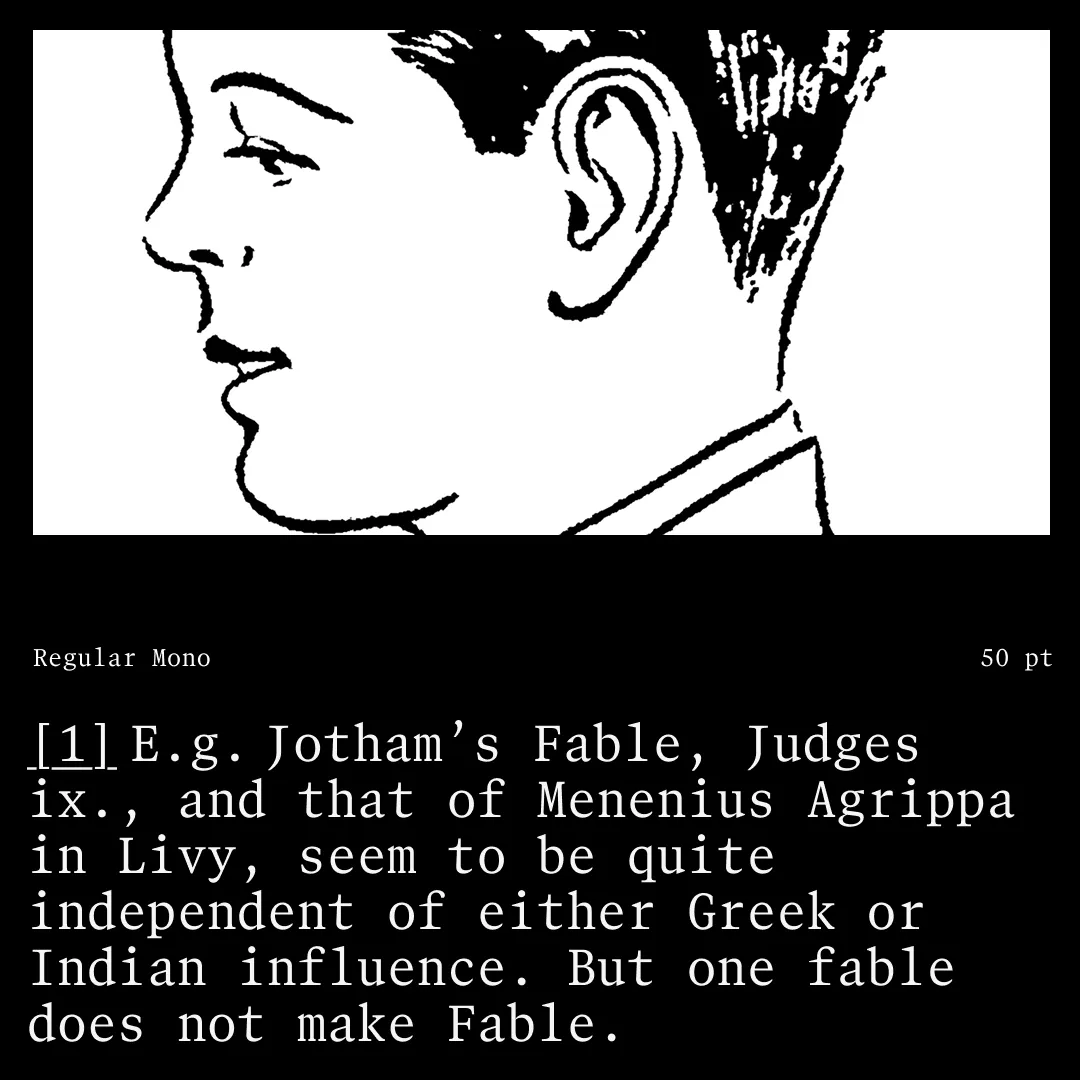
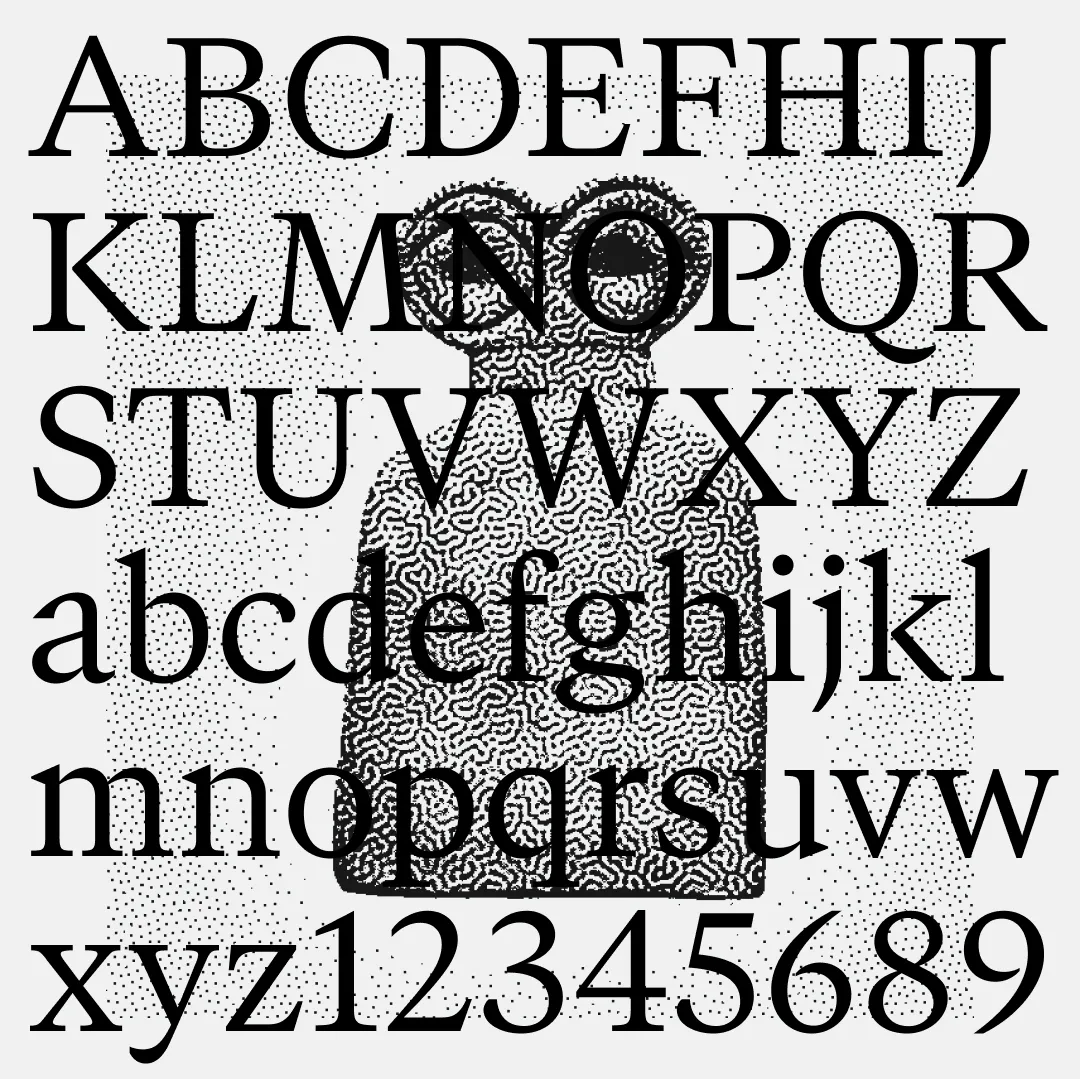
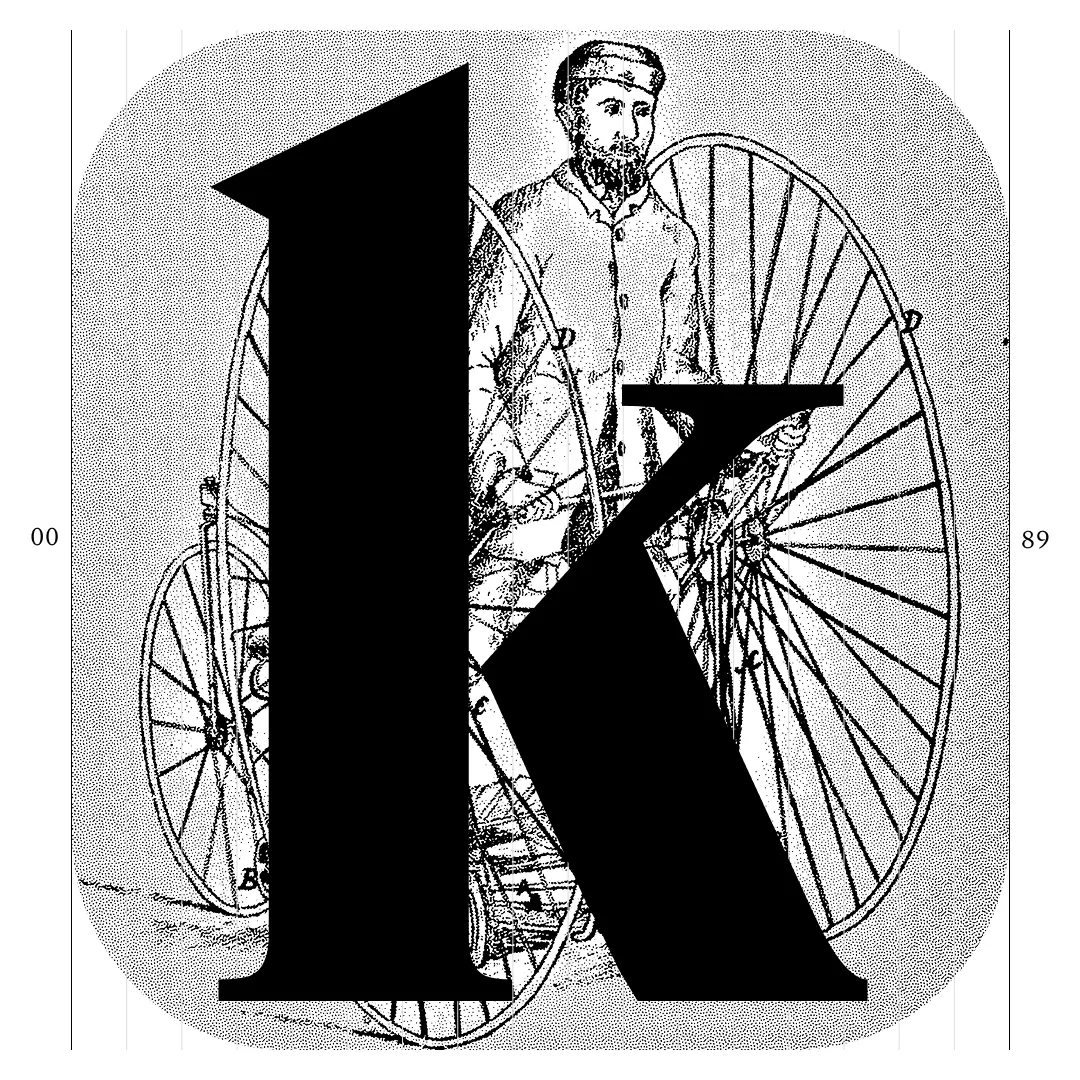
2. WTF Forma by W Type Foundry
Magdalena Arasanz and the team at W Type Foundry set themselves a challenging brief: create a typeface for big corporations that actually feels human. WTF Forma is their solution: a sans serif designed specifically for the complex communication needs of large organisations, yet one that avoids emotional sterility.
Drawing inspiration from DIN's clarity and structure, WTF Forma balances professional maturity with genuine approachability. It's designed to work across the full spectrum of comms: long-form copy, short copy, lists, titles, presentations, and everything in between. The foundry describes it as a "true solution", and that utilitarian framing proves accurate. This is a typeface built to handle real problems.
The family's 50 styles, including italics, span from Compressed through Condensed to Regular and Expanded to Wide. This range isn't mere expansion but considered variation, each width serving specific spatial and hierarchical needs. The result is a system that remains easy to navigate despite its breadth, offering what W Type Foundry calls "endless possibilities" without overwhelming complexity.
What makes WTF Forma compelling is its recognition that "legible and formal" need not mean cold or impersonal. The typeface maintains warmth and human character whilst delivering the reliability multinational brands require. In an era where corporate communication increasingly demands both authority and approachability, WTF Forma demonstrates how contemporary type design can serve both needs without compromise. It's professional typography that doesn't feel like it's apologising for having a personality.
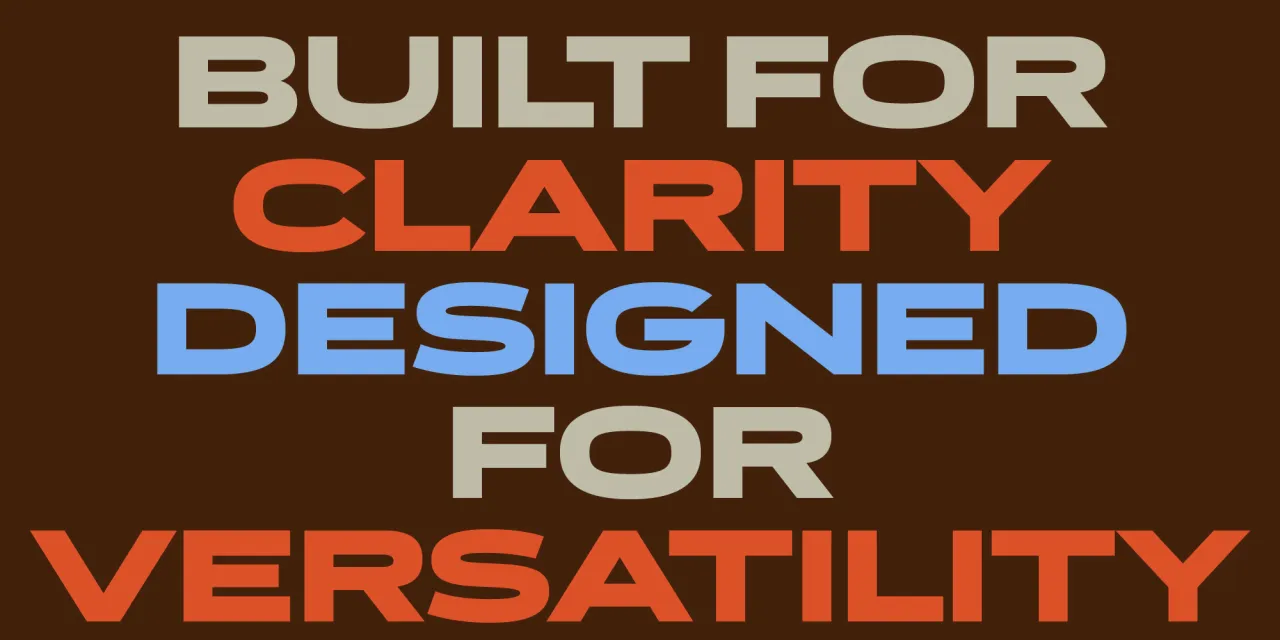
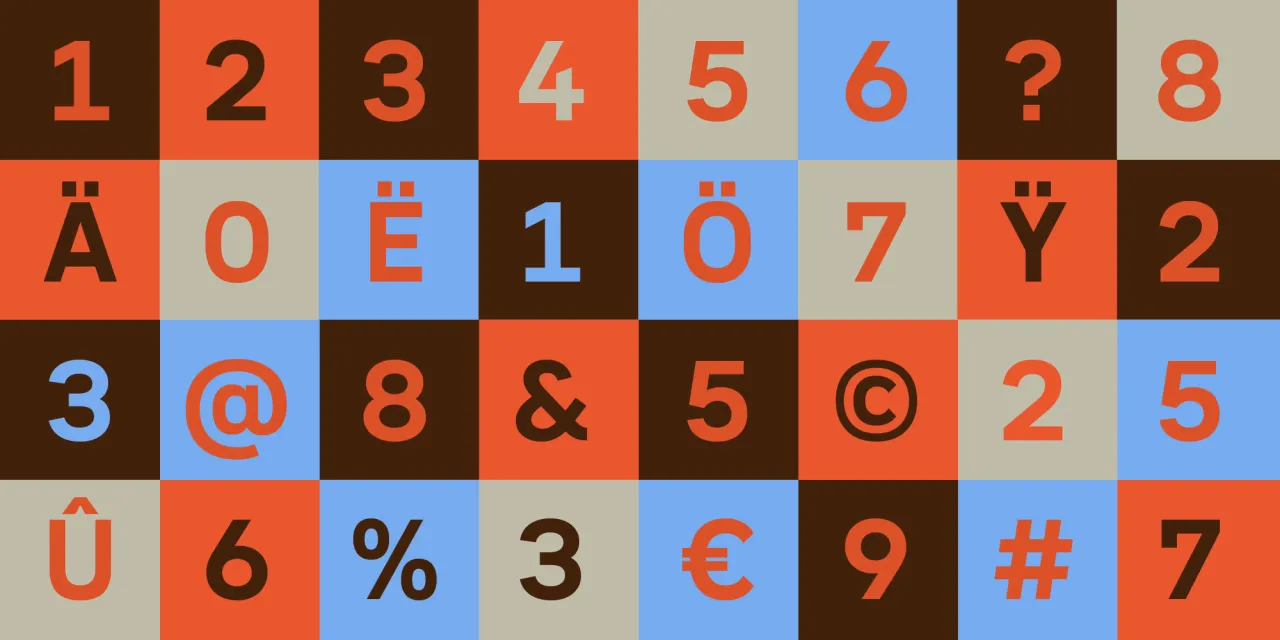
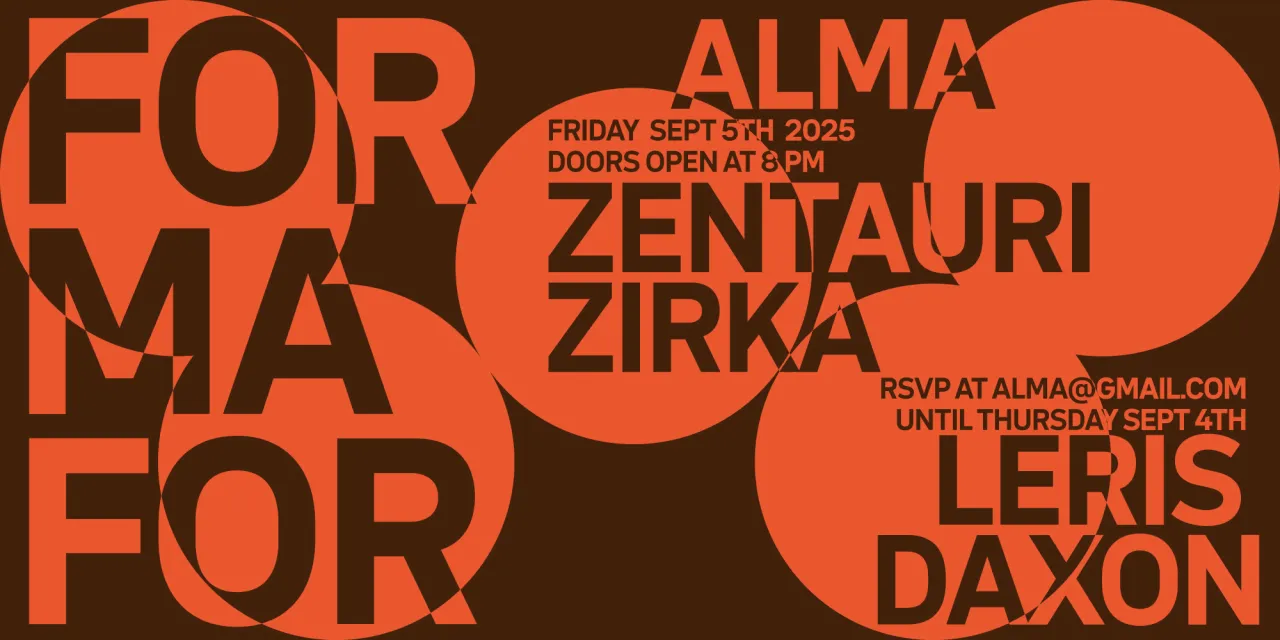
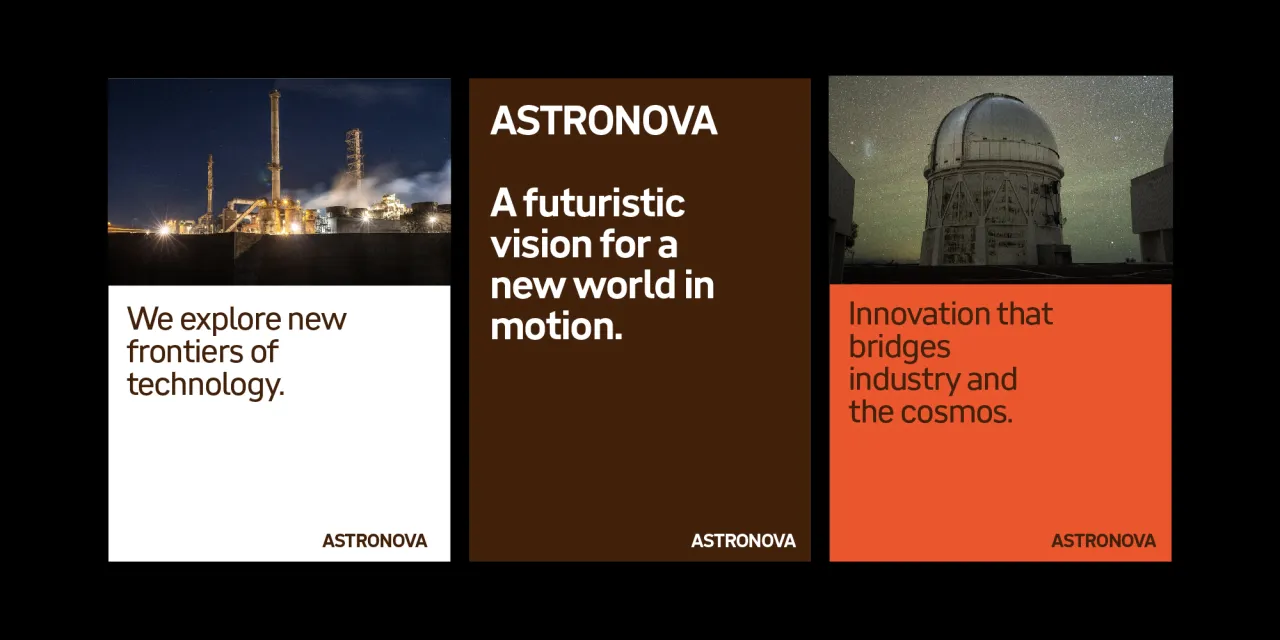
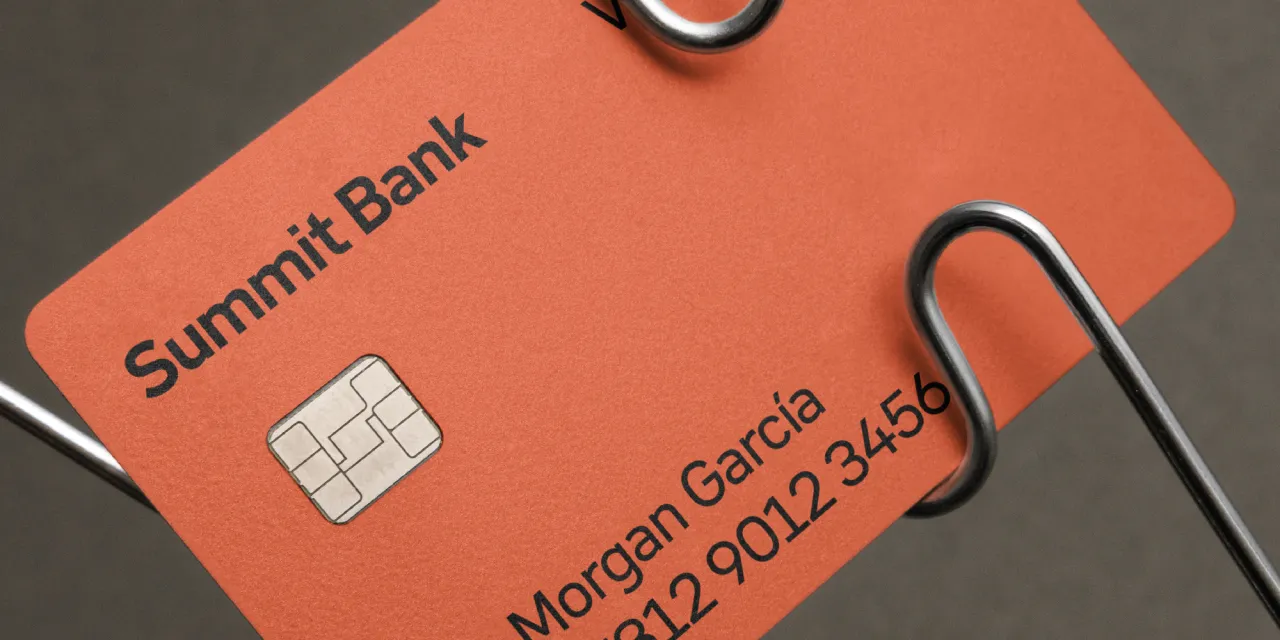
3. Cassis by Nina Stössinger
Cassis marks a big moment for both its designer and Frere-Jones Type: Nina Stössinger's first solo release with the foundry. The typeface itself embodies what that milestone represents—confidence in one's own voice, willingness to embrace imperfection, and the understanding that personality often matters more than polish.
Gallagher notes that many more families are in the production pipeline, suggesting that Stróc is merely the opening chapter in a larger project to preserve and update commercial lettering traditions. For designers seeking typefaces with genuine historical grounding that still function in contemporary contexts, Stróc offers an appealing balance: enough character to feel distinctive, enough restraint to work hard across varied applications. It's sign painting for the digital age, honouring its sources whilst serving modern needs.